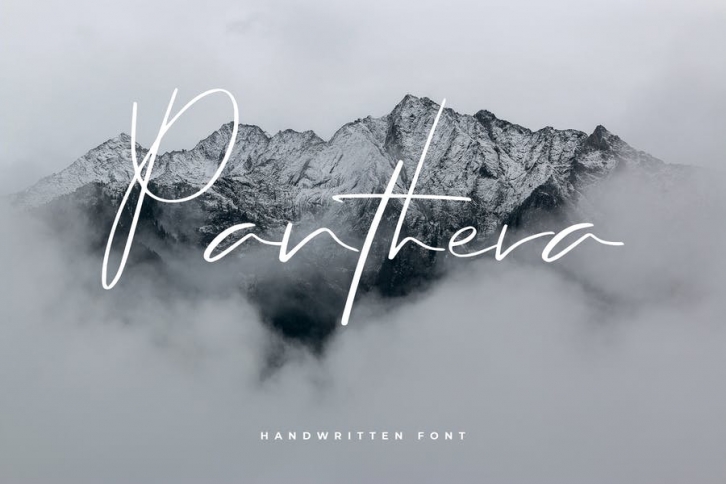
Panthera is a handwritten font. Work great for any design needs: logo, branding, modern advertising design, logos, poster quote, book/cover Title, editorial design, website/blog, card, custom mug, pillow, t-shirts, and any hand-lettered needs.